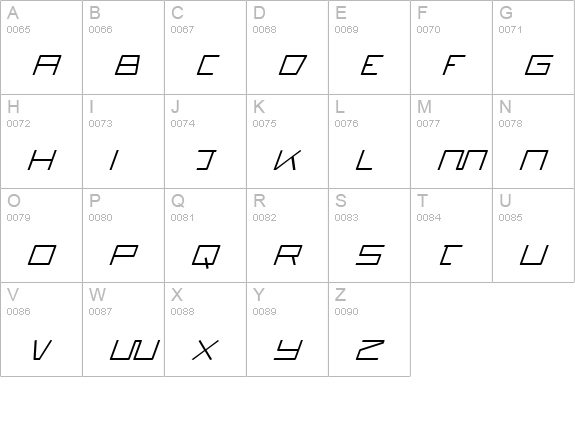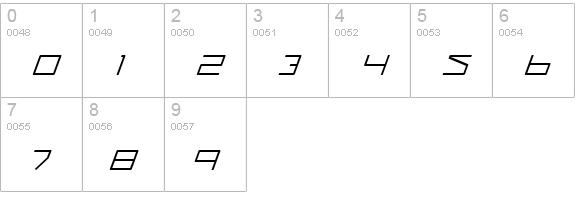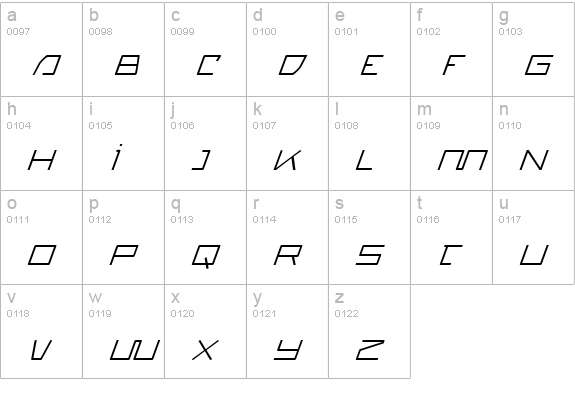
Quasitron Italic Font Details
Quasitron Italic is a distinctive, italic variant in the Quasitron typeface family \xE2\x80\x94 well suited to design and typography projects.
Introducing Quasitron Italic font, a sleek and modern typeface perfect for adding a touch of sophistication to your projects. With its stylish slanted design and clean lines, Quasitron Italic exudes a sense of elegance and professionalism. This versatile font is ideal for a wide range of design applications, from branding and advertising to web design and social media graphics. Whether you're creating a sleek logo or designing a stylish poster, Quasitron Italic will help you make a bold statement. And the best part? Quasitron Italic is completely free to download at FontsMarket.com! Simply head over to the website and grab this beautiful font to elevate your designs without breaking the bank. Don't miss out on the opportunity to enhance your projects with the modern and sophisticated Quasitron Italic font.